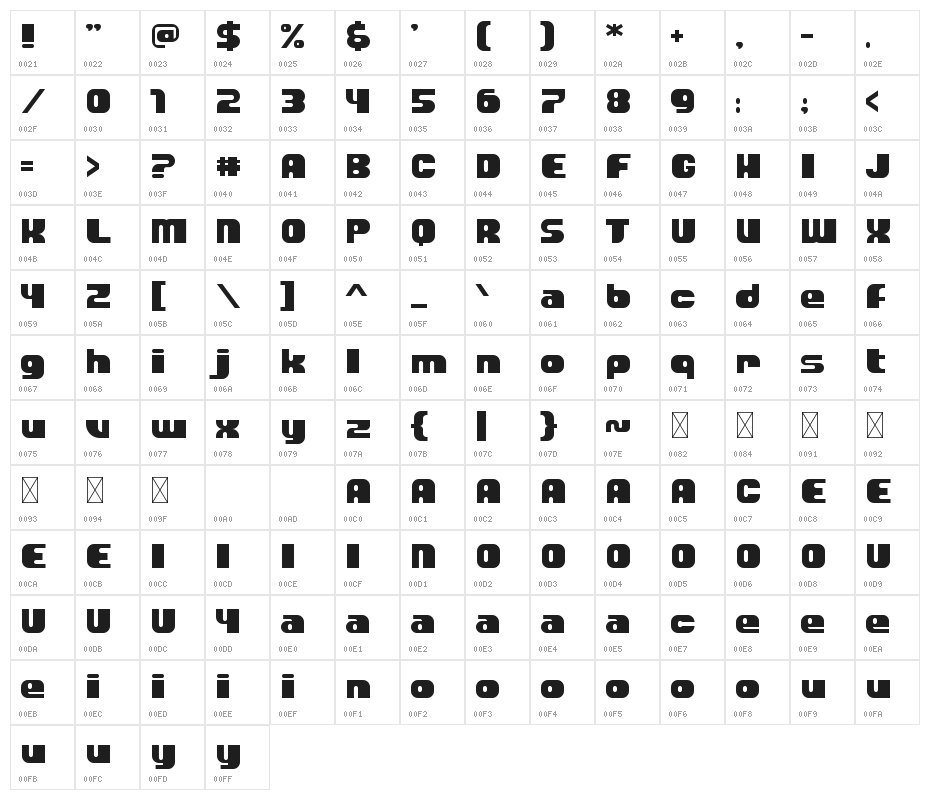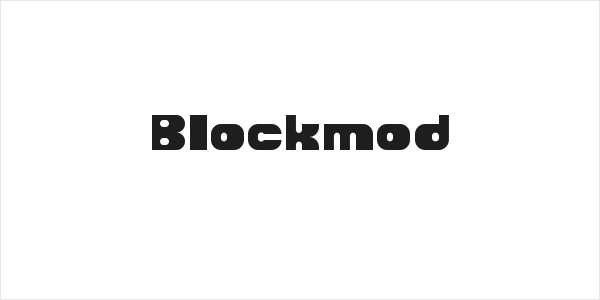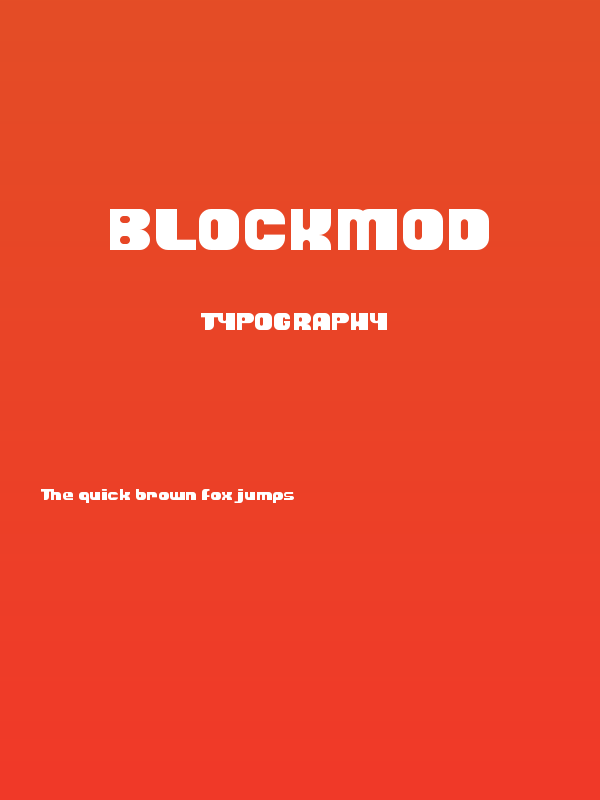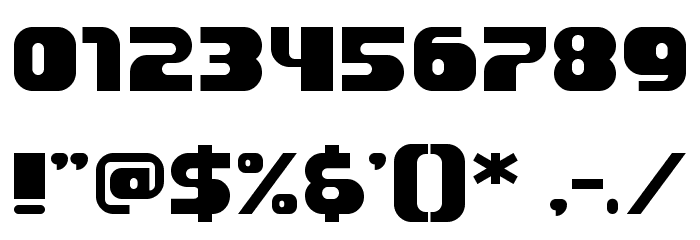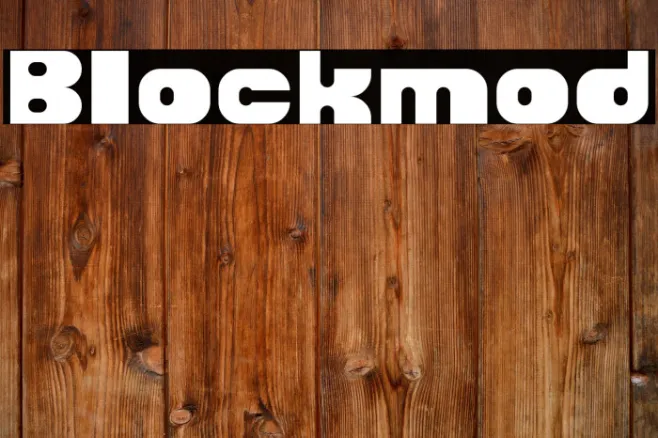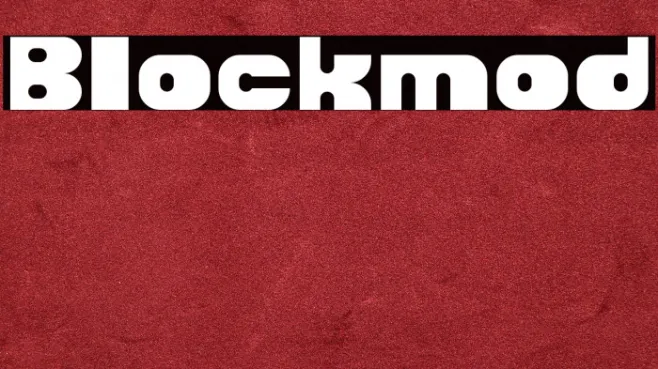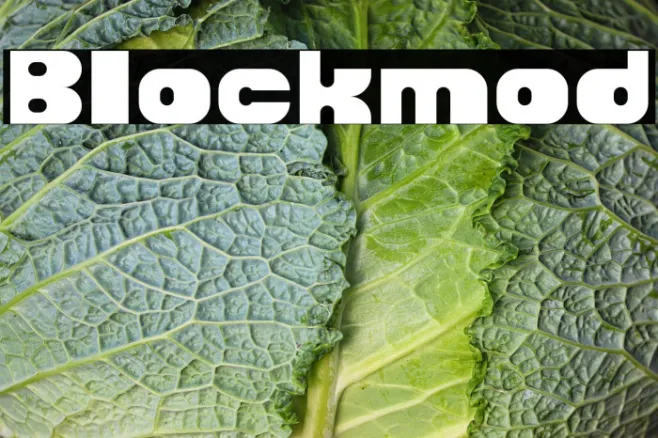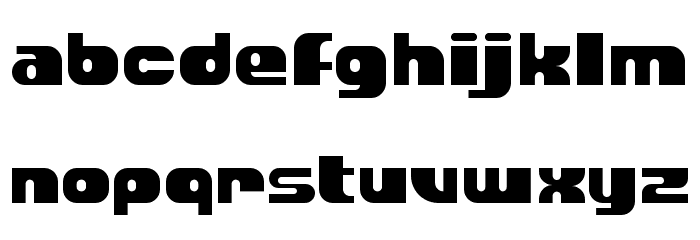
Blockmod Font
Blockmod Description
This font exhibits a bold and striking design with a distinctly modern and geometric aesthetic. The characters are blocky and robust, featuring uniform stroke widths that contribute to a strong visual impact. The uppercase and lowercase letters maintain a consistent style, with rounded edges and a slight futuristic flair. The numerals and special characters align with the overall boldness, ensuring a cohesive look across all elements. This font's unique style makes it suitable for attention-grabbing designs where readability and impact are key.
| Proposed Projects | Ideal for branding, posters, headlines, and any design requiring a strong visual presence. |